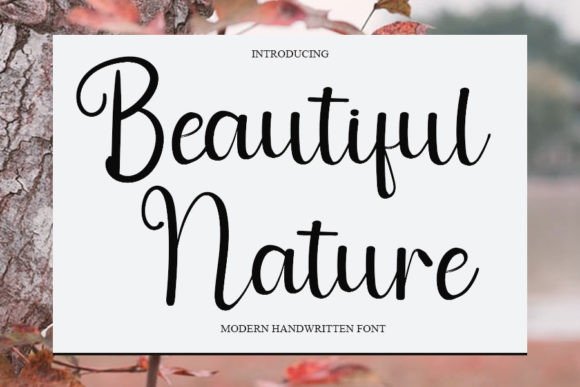
Beautiful Nature Font
Download Beautiful Nature Font for free! Created by NYA Letter and published by Benjamin Schultz, this script font family is perfect for adding a unique touch to your designs.
Dive into the world of elegance and sophistication with Beautiful Nature Font, a script font family that will transform your creative projects into captivating masterpieces. Inspired by the timeless art of calligraphy, this font exudes a modern vibe while maintaining a classic charm.
Crafted by the skilled hands of NYA Letter, Beautiful Nature Font is a visual symphony of curves and strokes, effortlessly flowing together to create a visually stunning display. Its carefully balanced thickness and delicate variations add depth and dimension to your designs, making them stand out from the ordinary.
Tailored to perfection, Beautiful Nature Font is not too thin or thick, striking a harmonious balance that enhances the beauty of your projects without overpowering them. Whether you're a seasoned designer or just starting your creative journey, this font is your gateway to creating captivating content that speaks volumes.
With Beautiful Nature Font, you'll find a font that seamlessly adapts to a myriad of projects. Its versatility shines through, whether you're designing logos, branding materials, wedding invitations, or simply adding a touch of elegance to your social media posts.